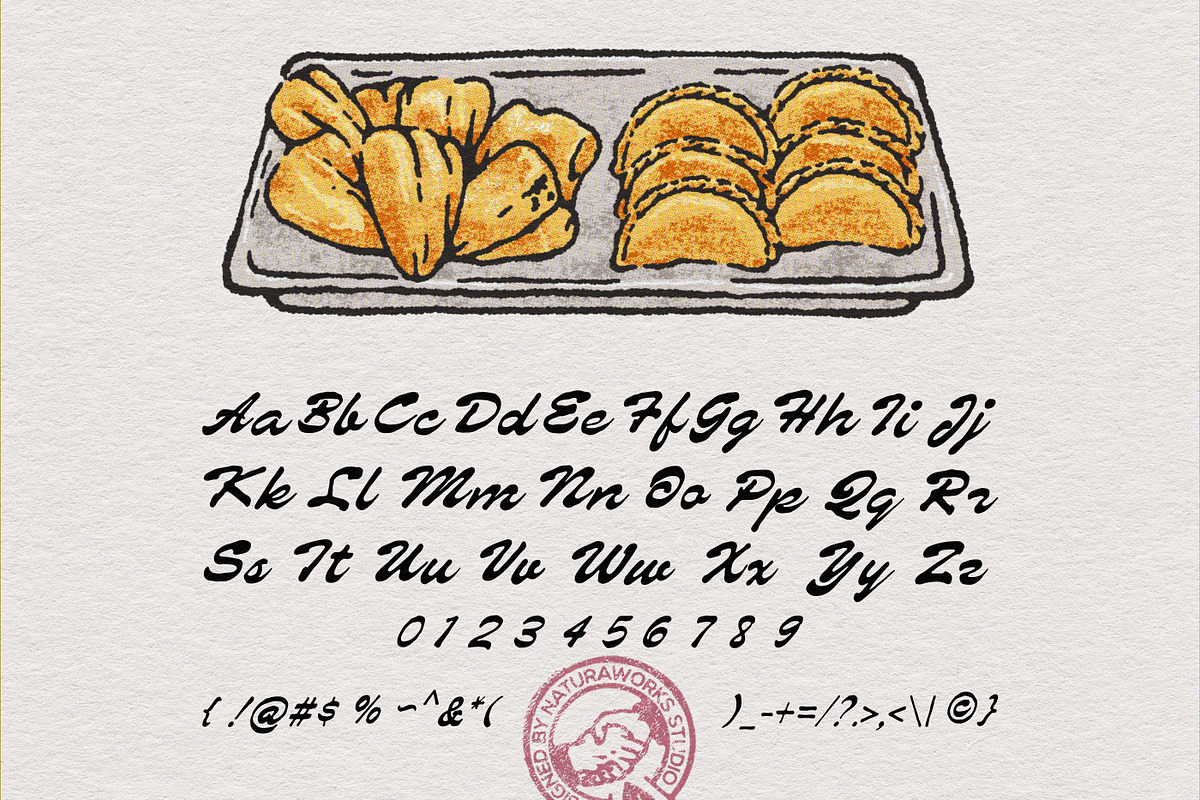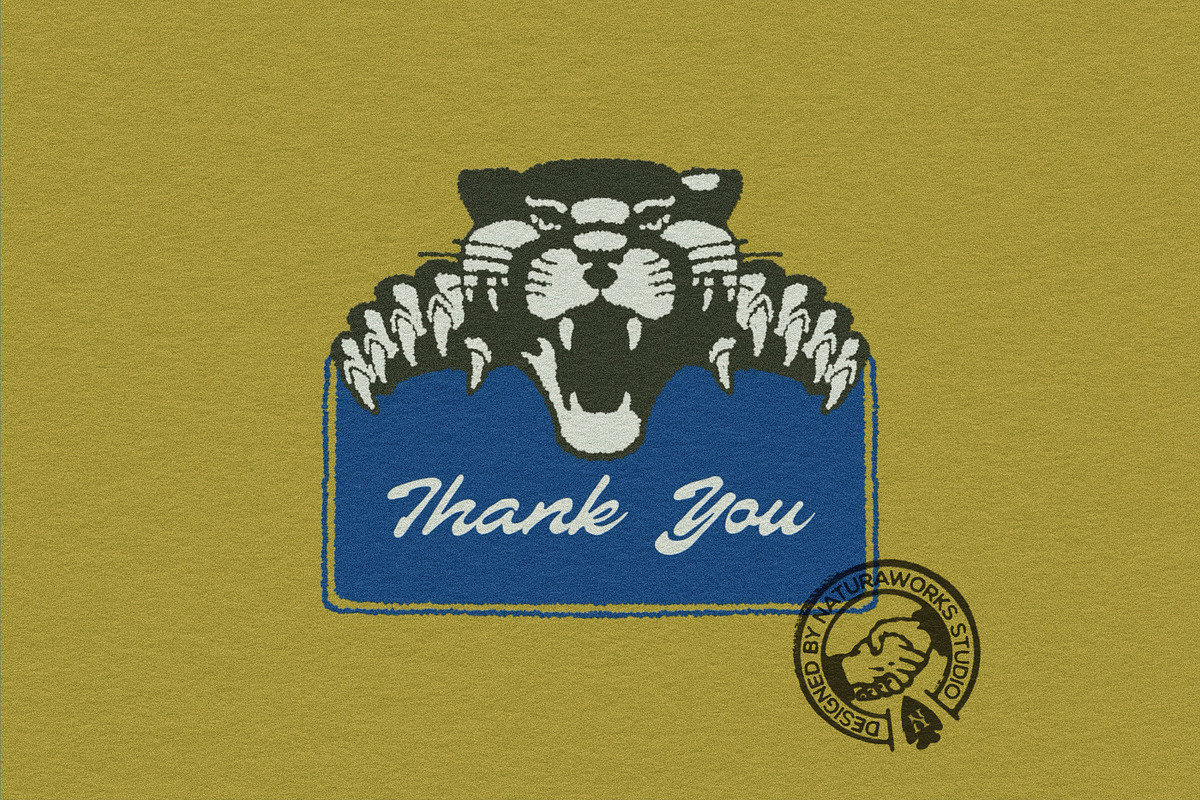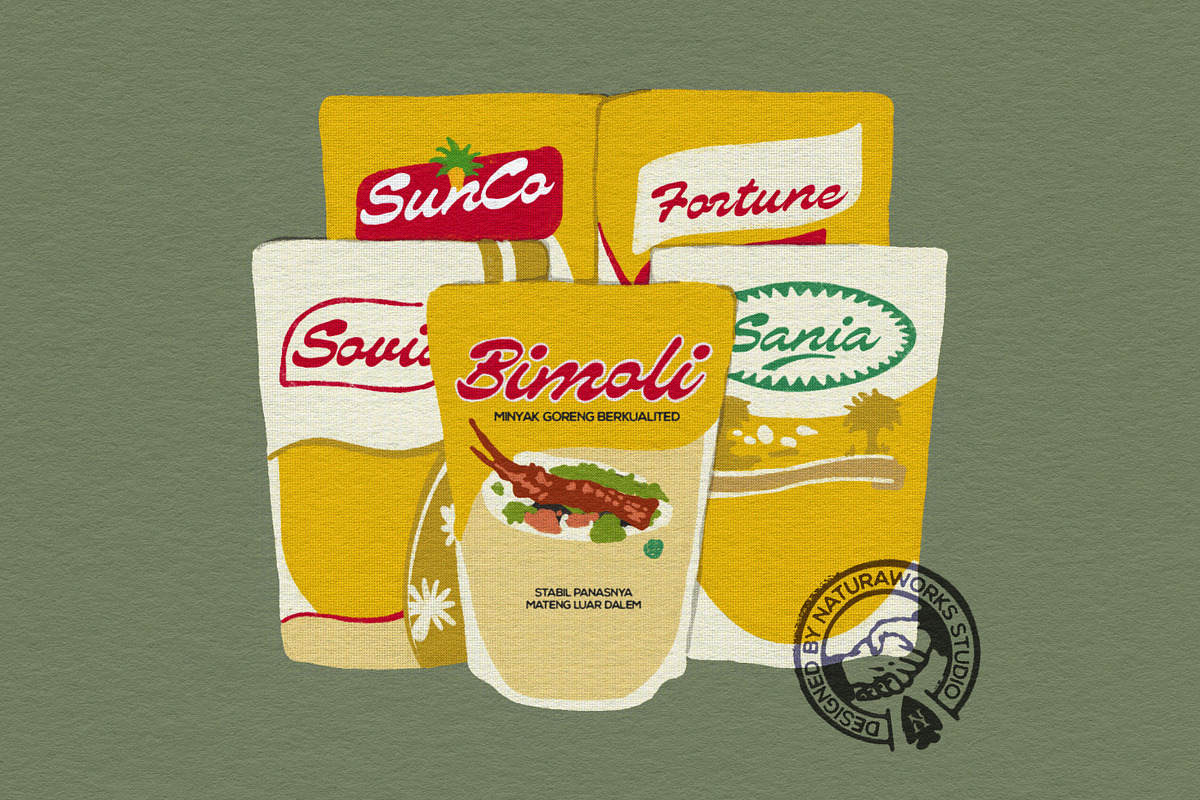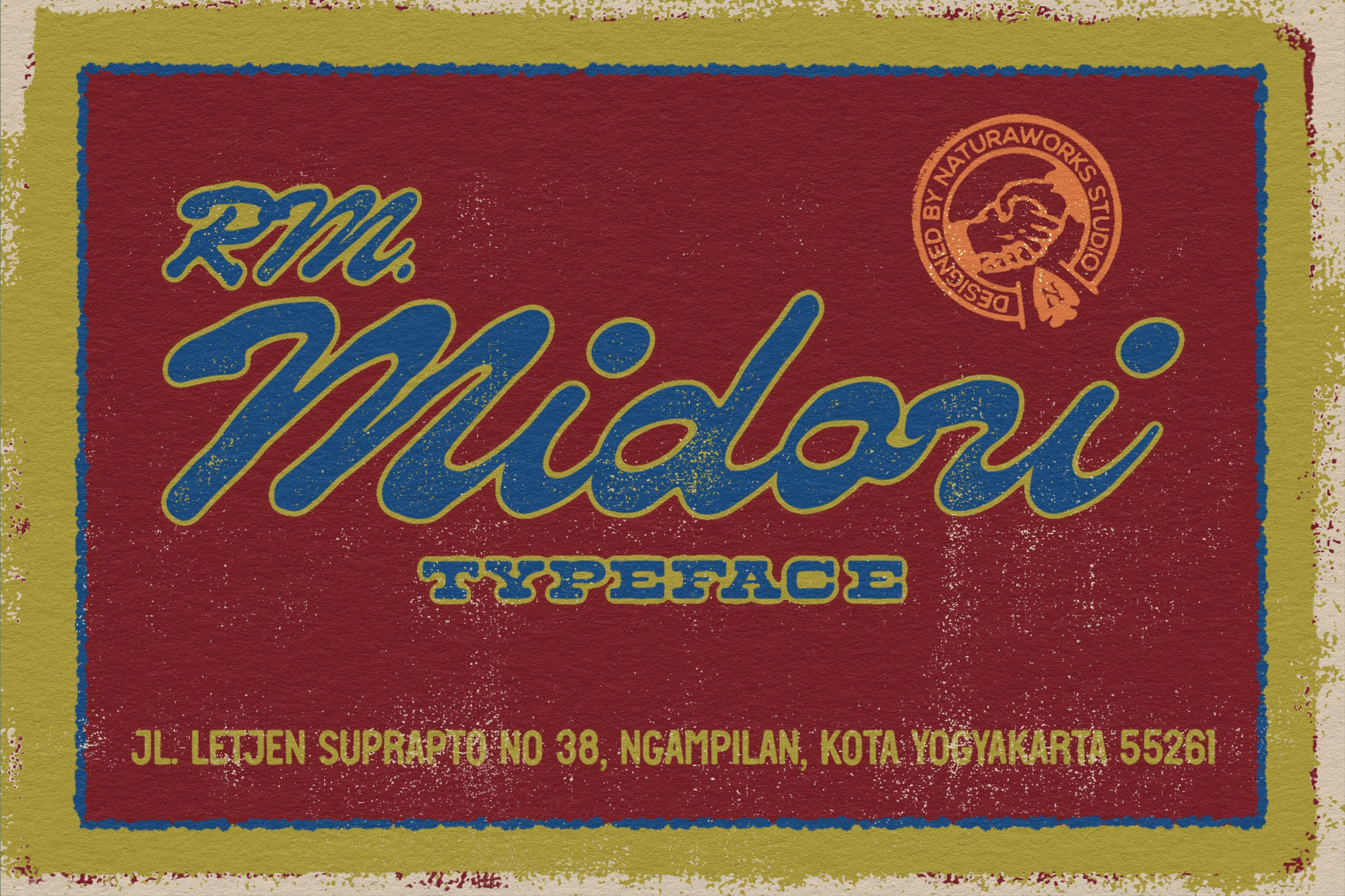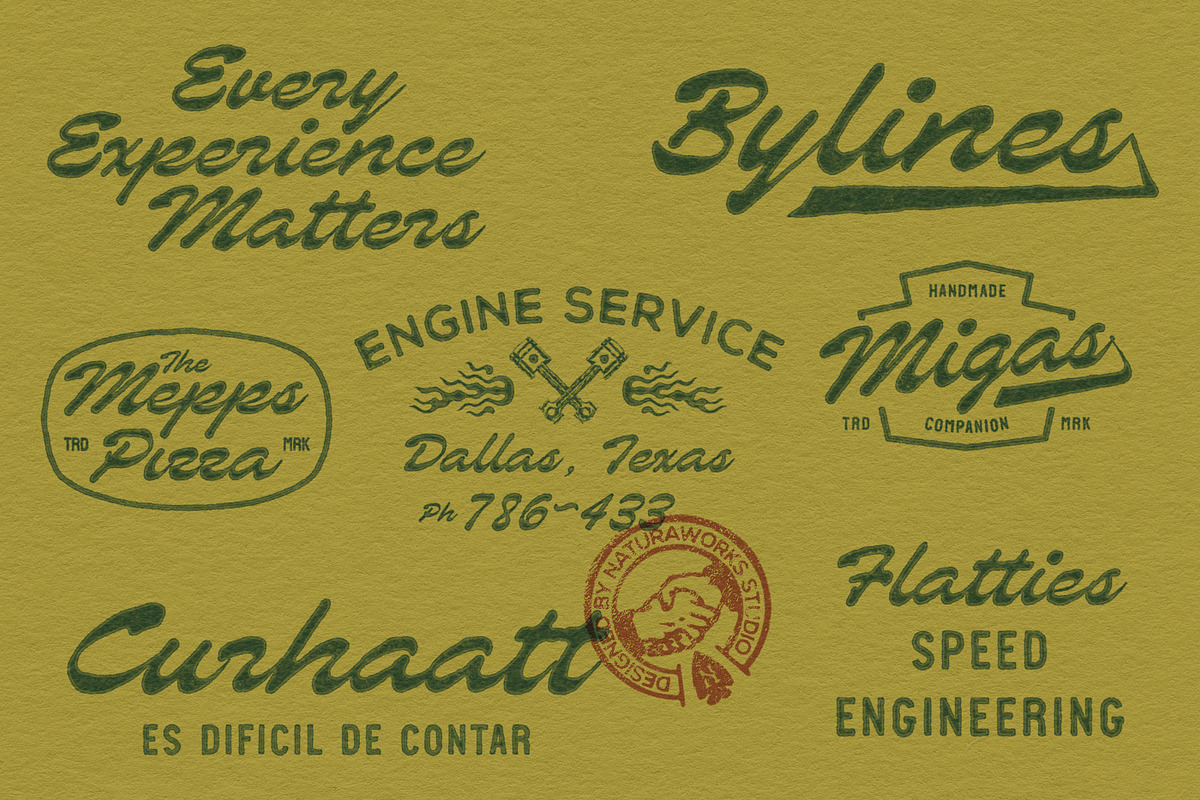
RM MIDORI TYPEFACE
INTRODUCING
RM MIDORI TYPEFACE. Is a font inspired by American vintage fonts. Very fit and easy to make your awesome product, create label design, logo design, badge design, t-shirt design, posters, greeting cards, letterheads or anything looks like vintage and hand drawn vibes. Also you will get some random illustrations and some editable badge designs. Hope you like it!